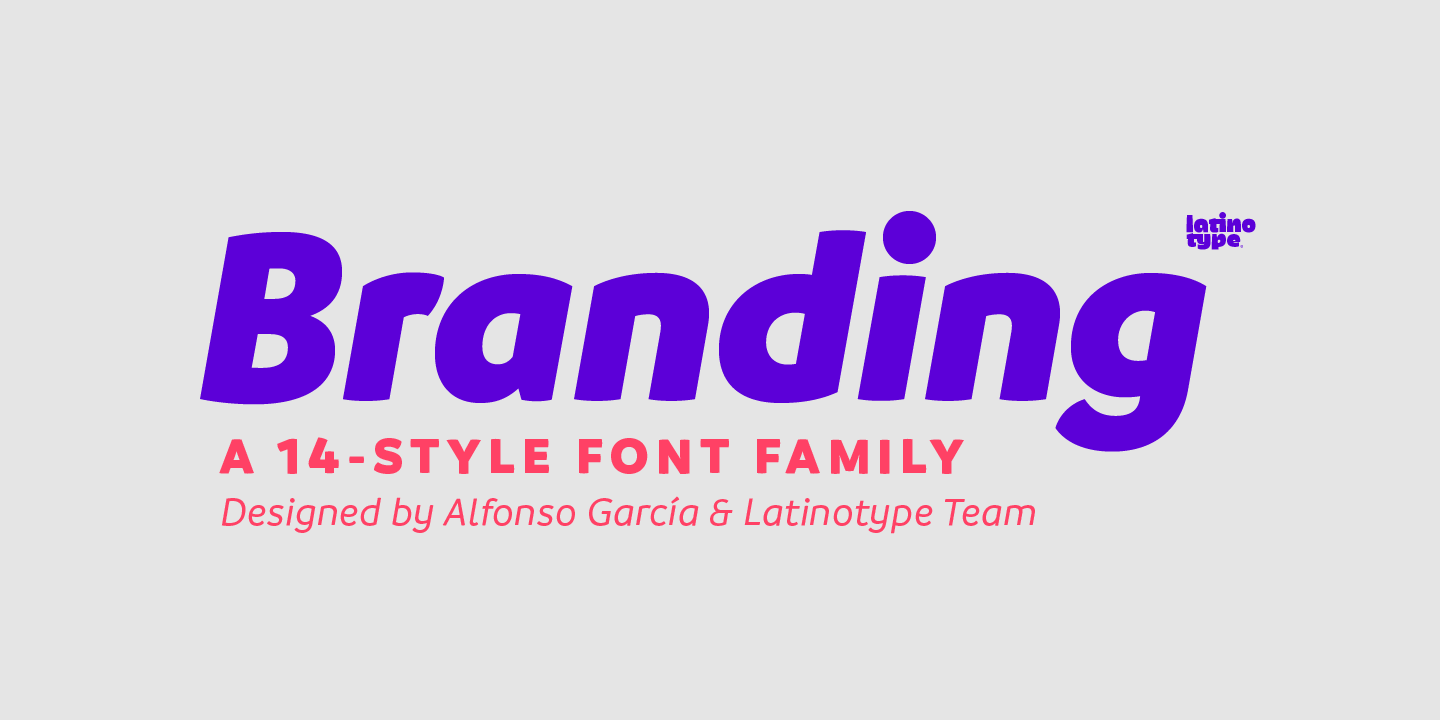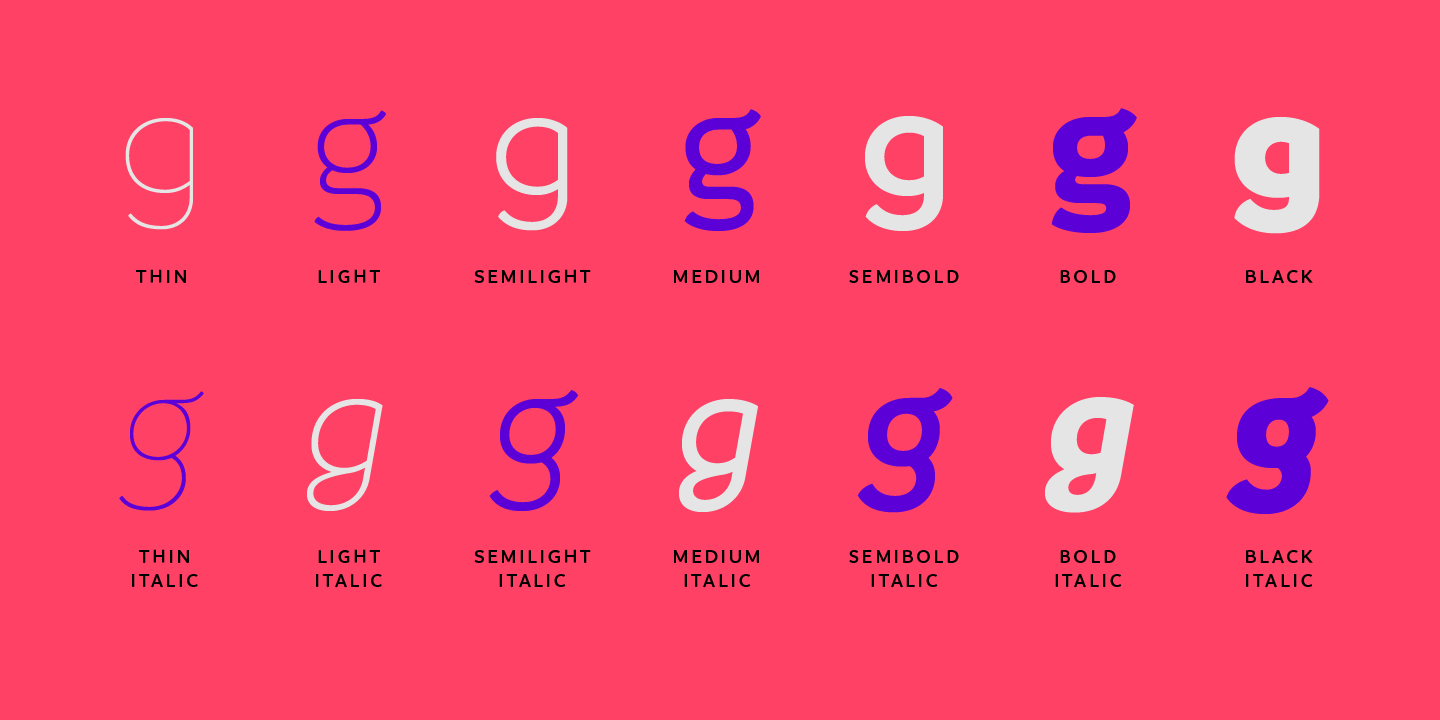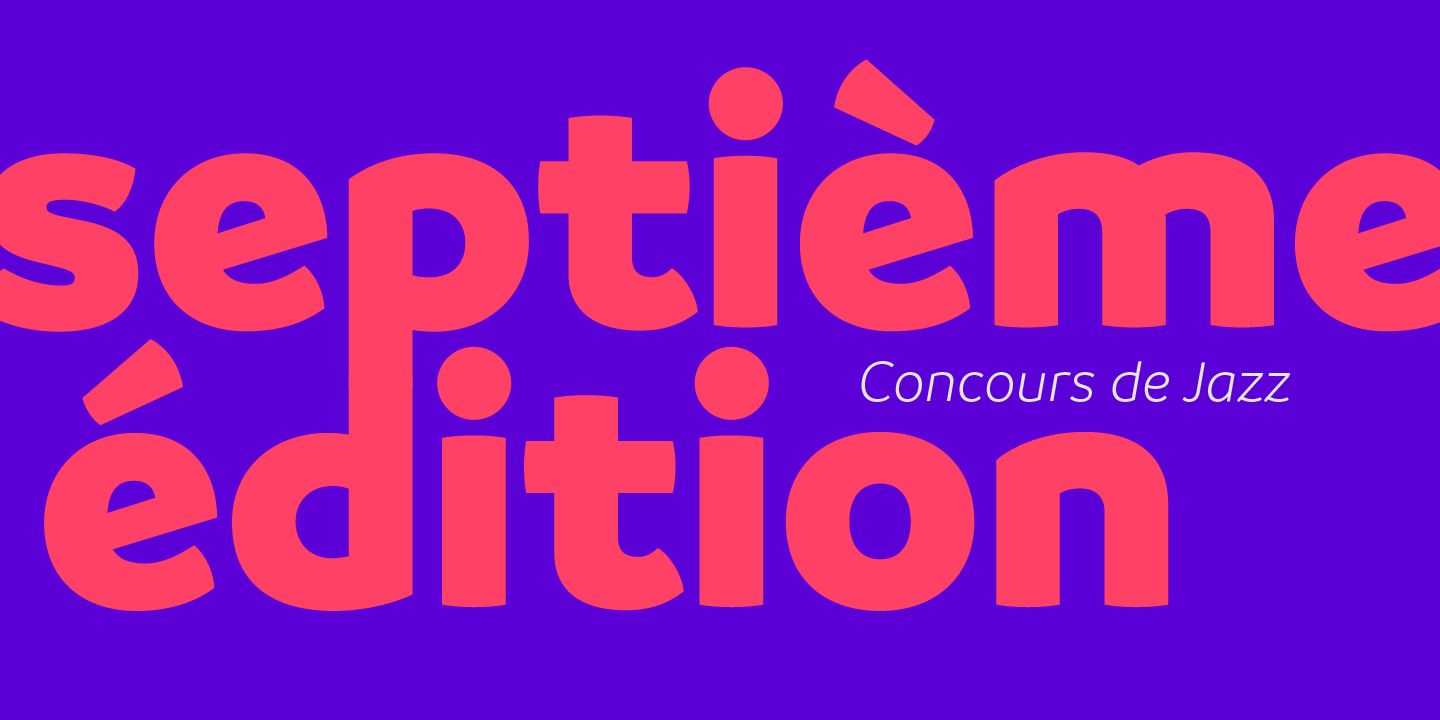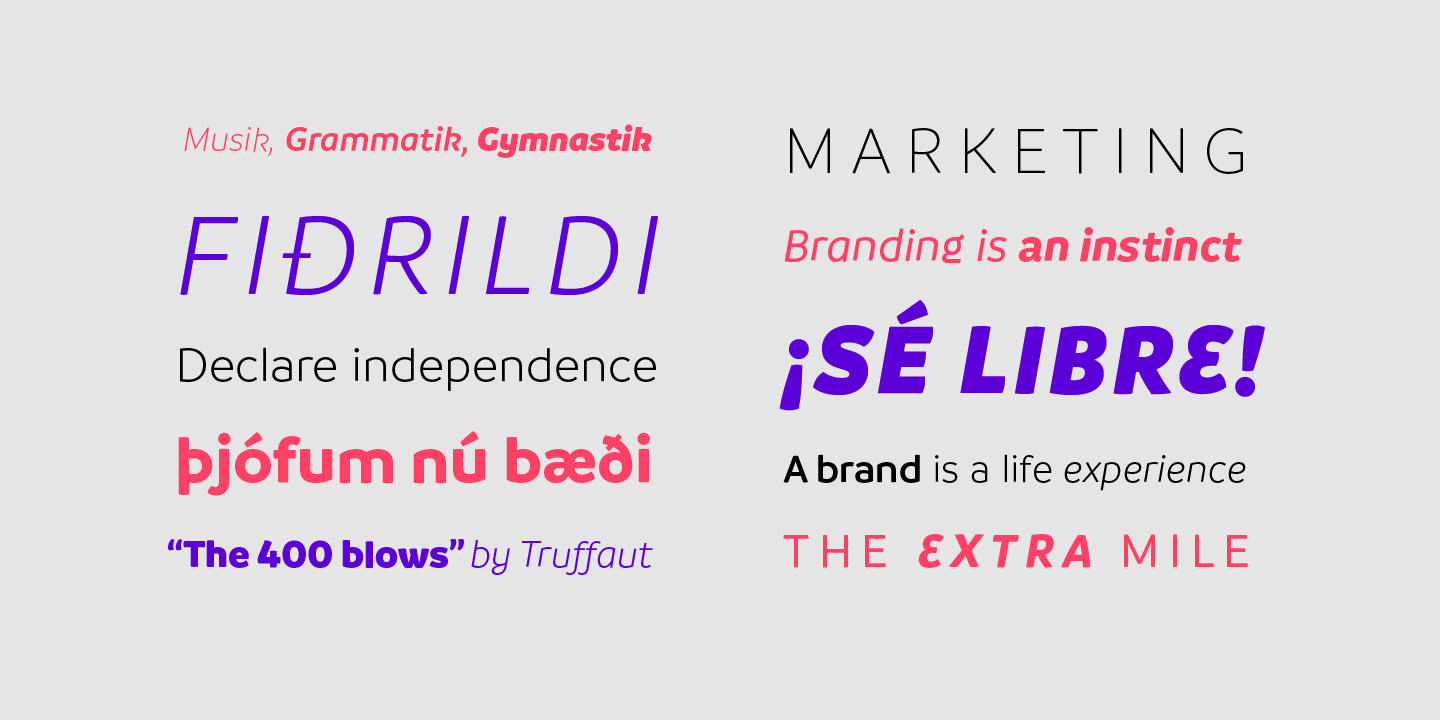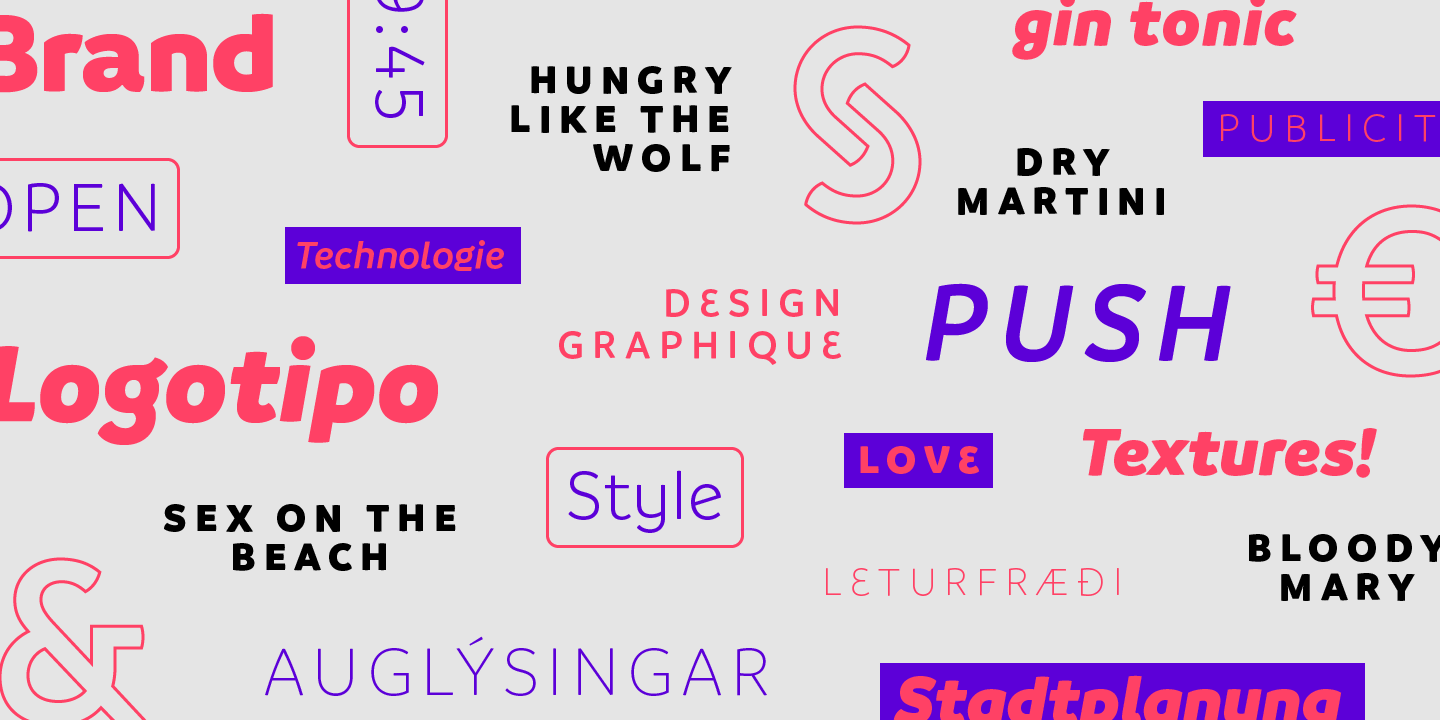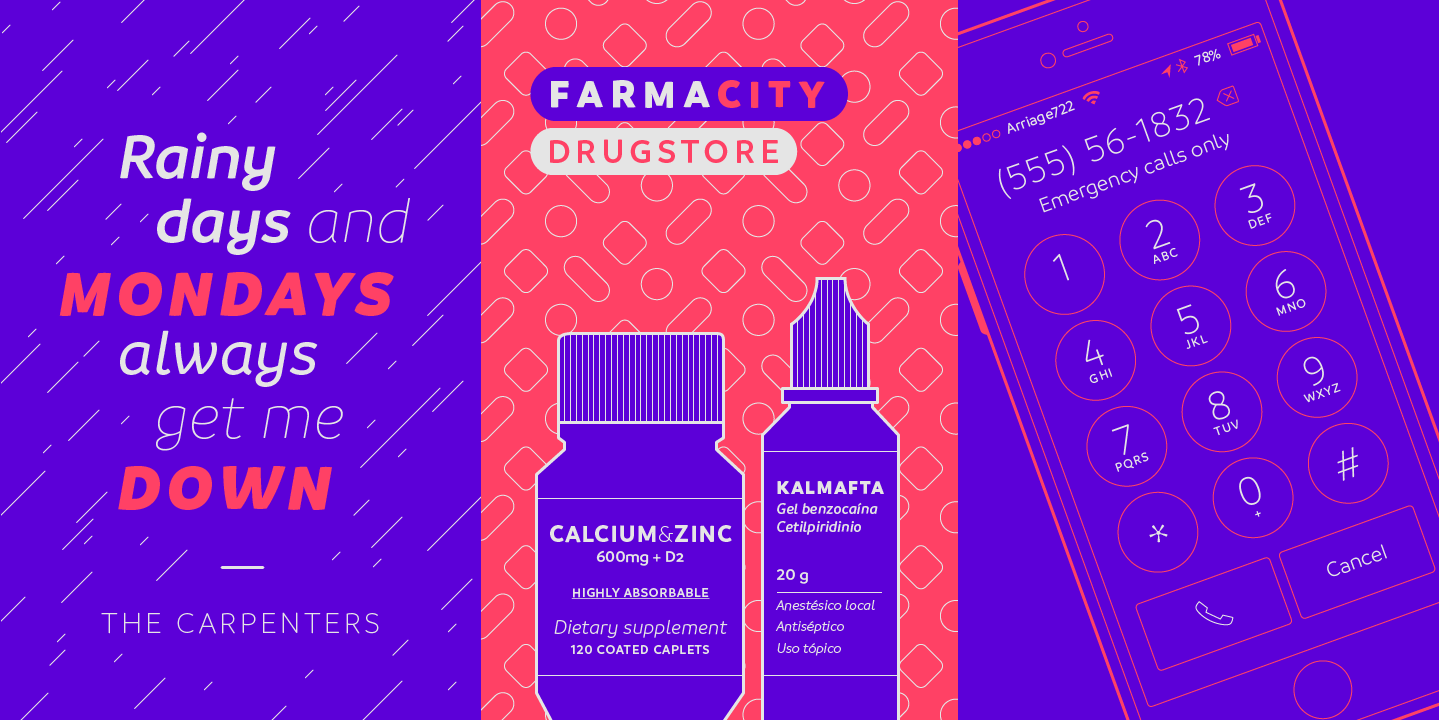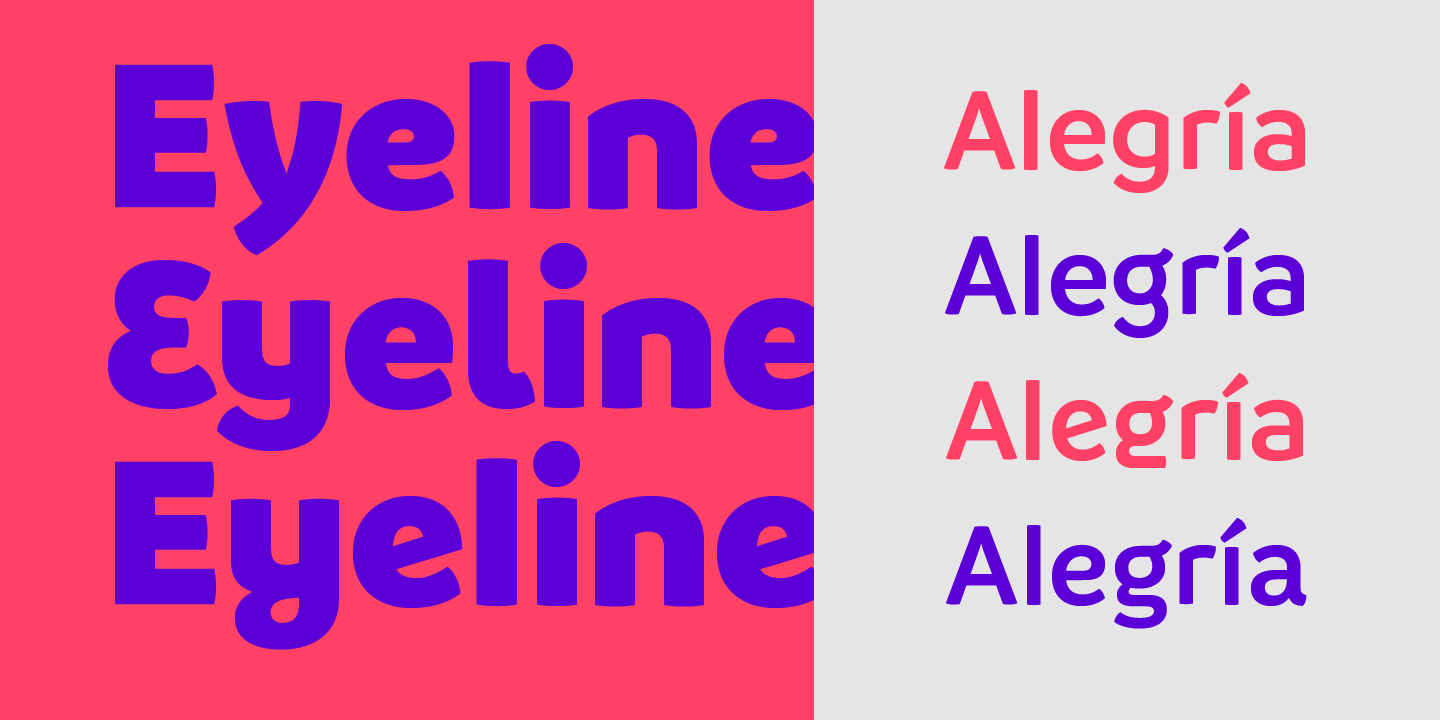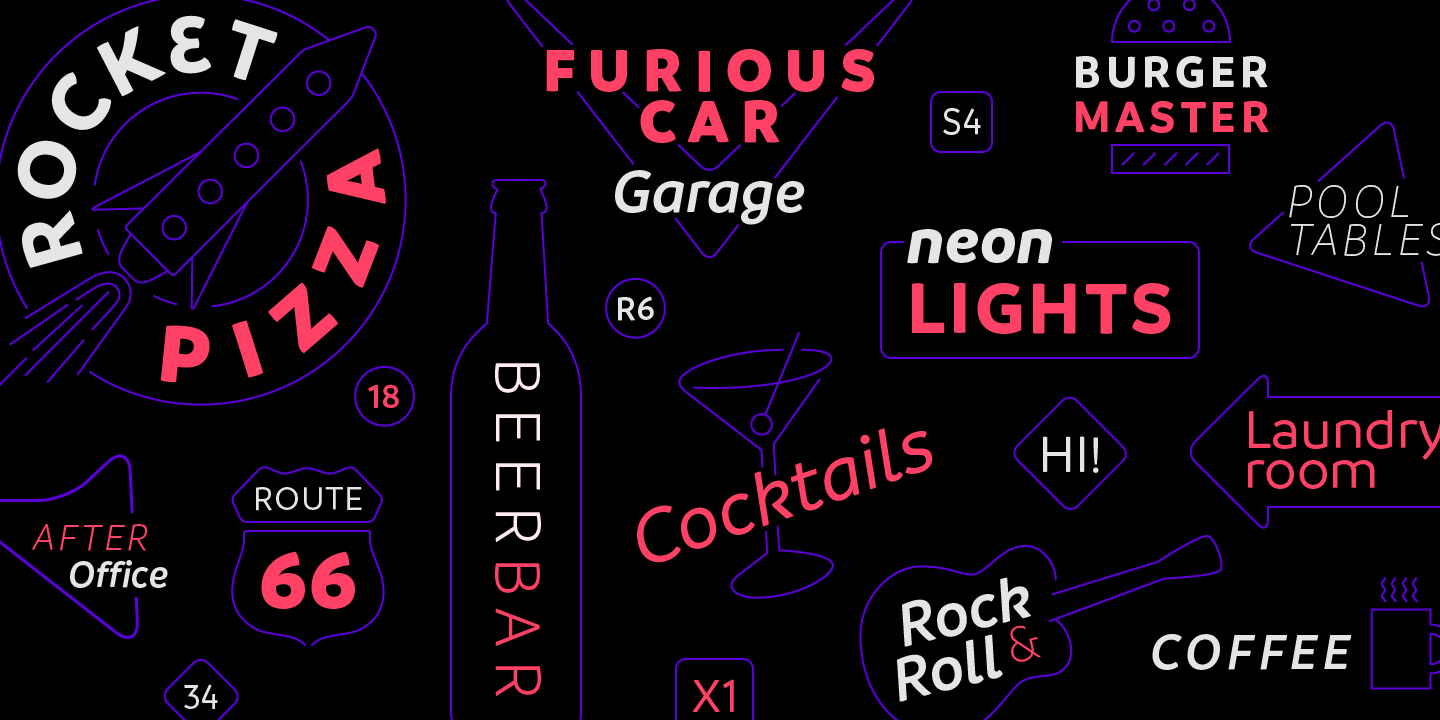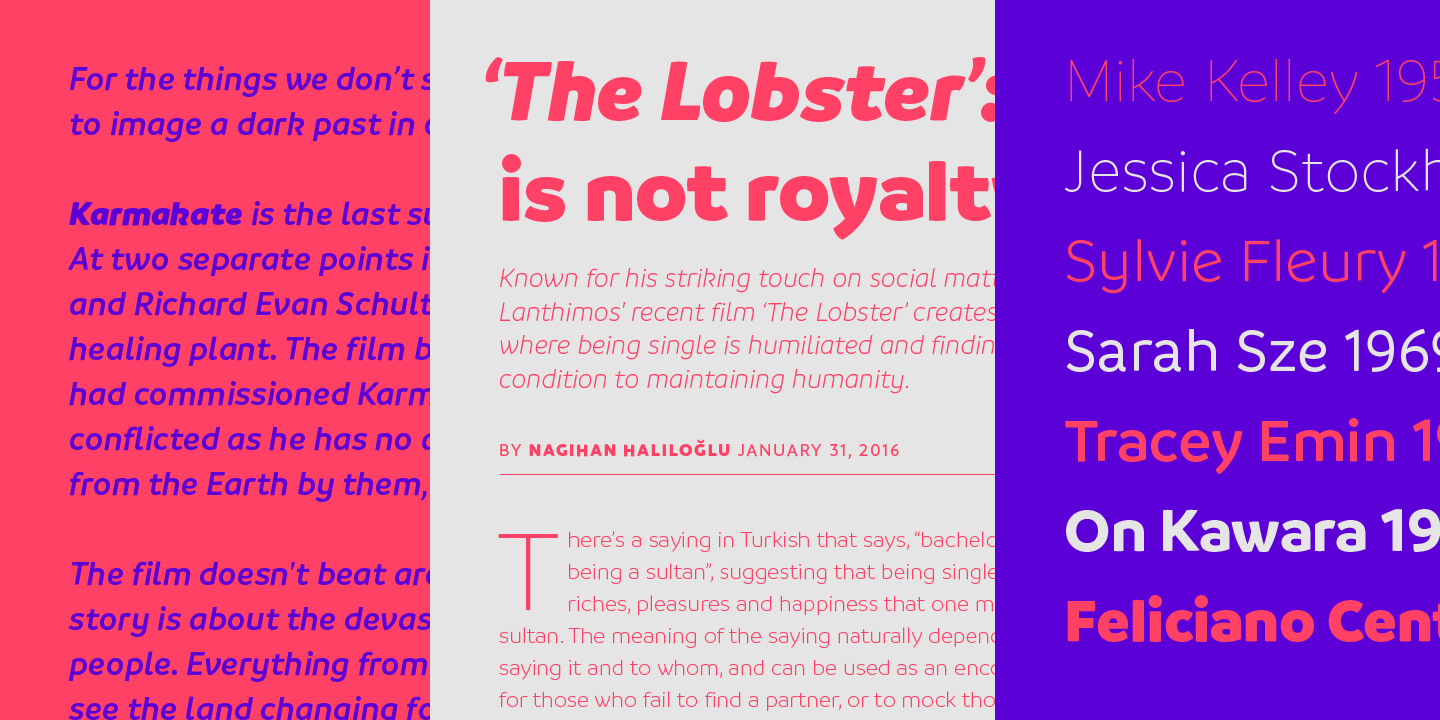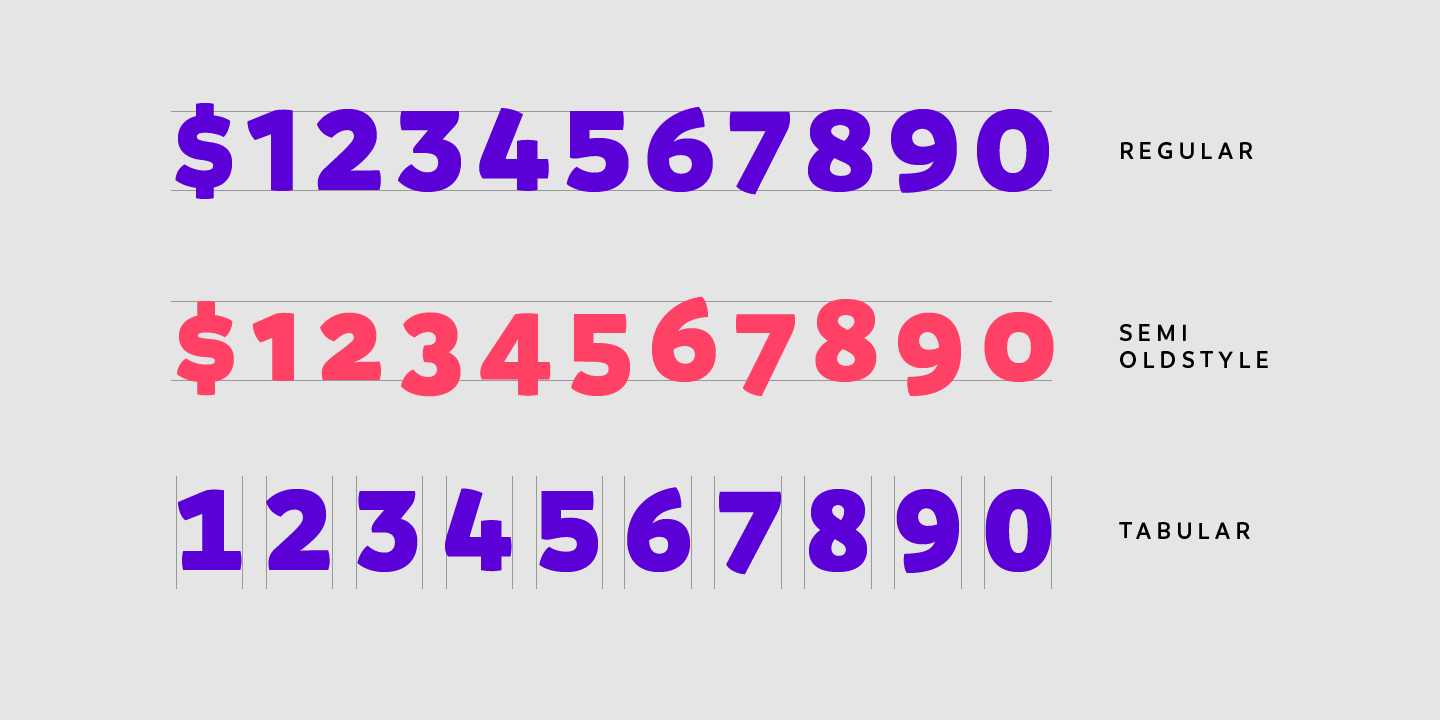
Branding Family (14 fonts)
This typeface encapsulates a wide range of nuances and combines, seemingly, opposite elements such as technology and friendly rounded shapes. In addition, alternative characters make Branding an ideal tool for both graphics designers and art directors.
Branding is a sans-serif spurless typeface with a medium-large x-height, slightly wider horizontal proportions, straight curves and convex terminals.
This font is well-suited for logotypes, isotypes, short text, etc. Branding comes in 7 weights—ranging from Thin to Black—with matching italics and includes a set of 544 characters that supports 128 different languages. European accents, old style numbers and multiple alternates are also included.